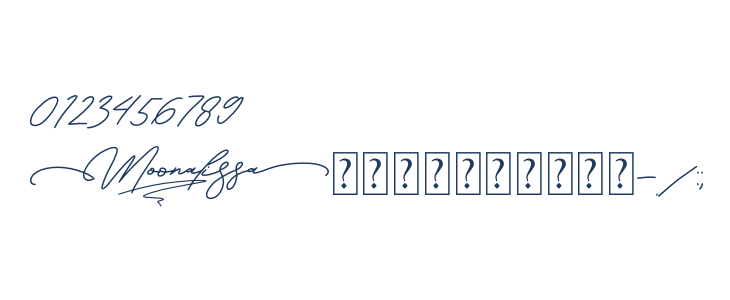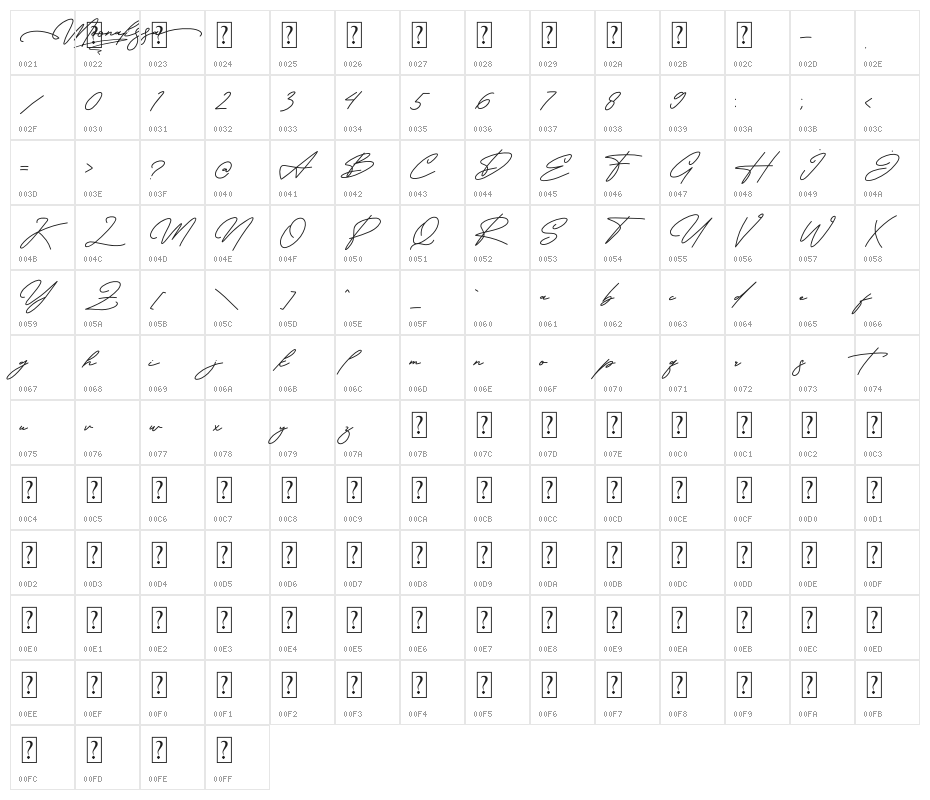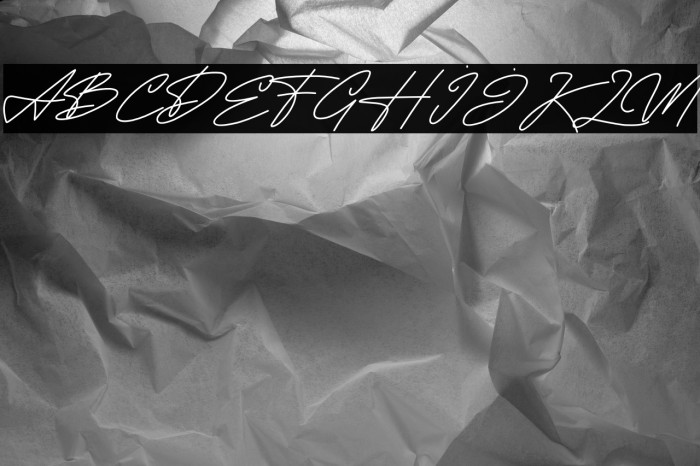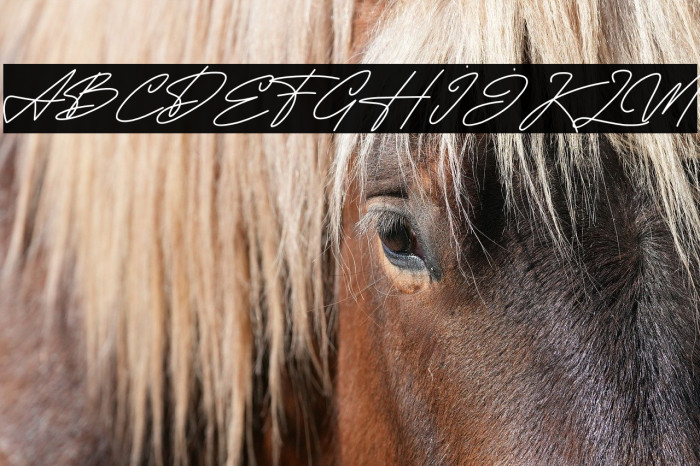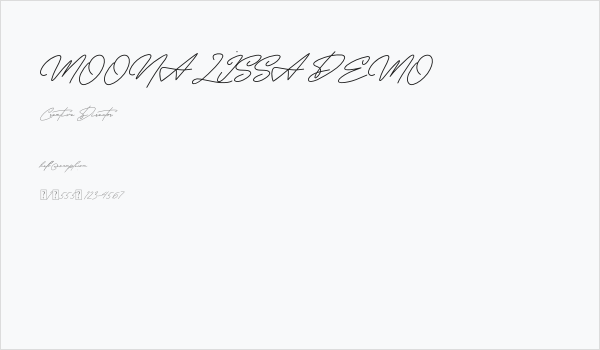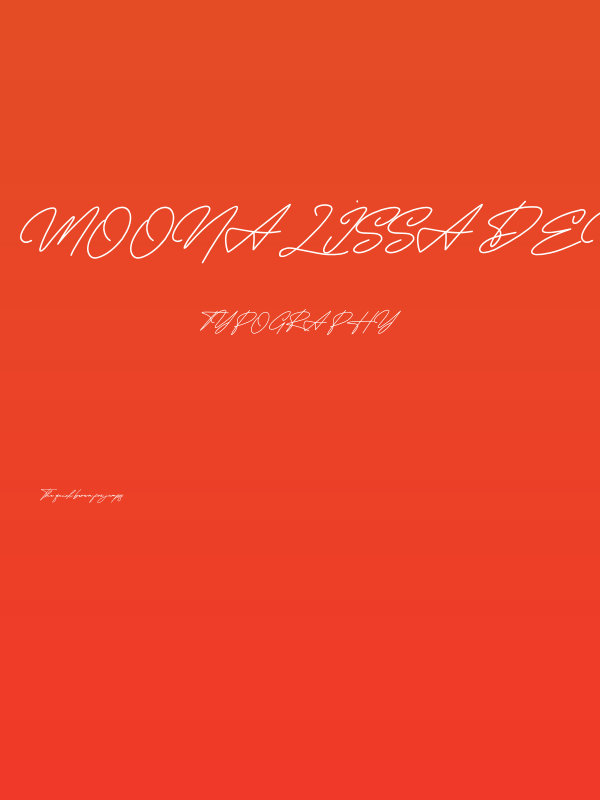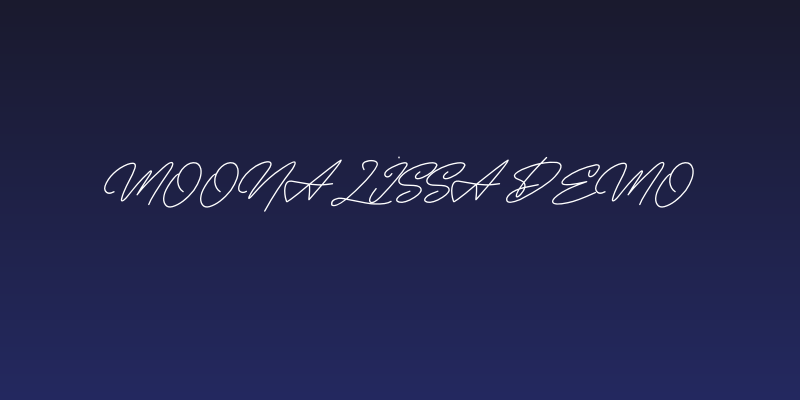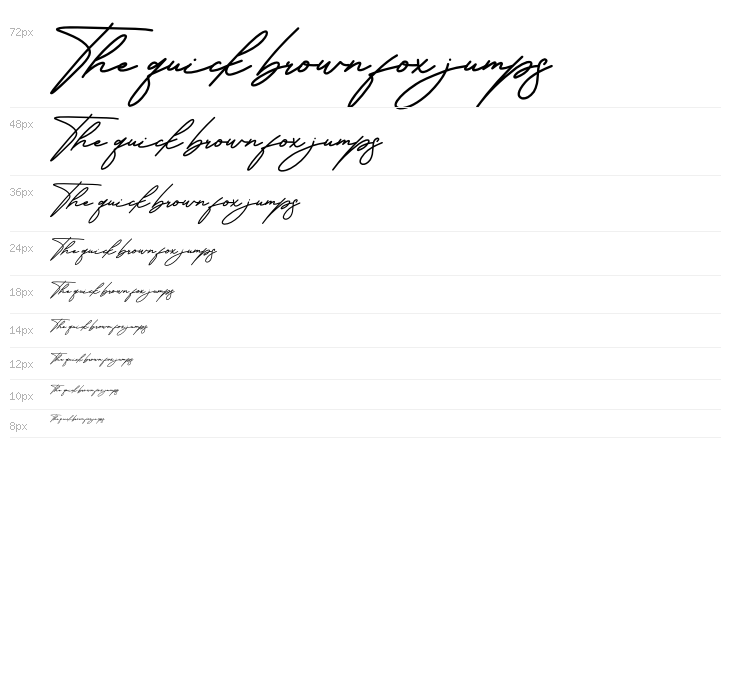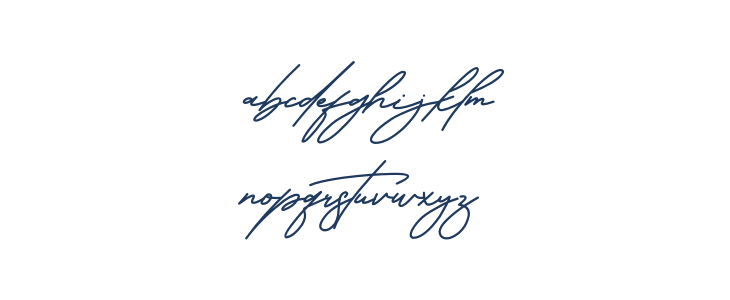
MOONALISSA DEMO Font
MOONALISSA DEMO Description
This elegant script font features a fluid, cursive style with smooth, flowing lines that mimic natural handwriting. The uppercase letters are slightly larger and more ornate, while the lowercase letters maintain a consistent, graceful appearance. The numerals are clear and easy to read, complementing the overall aesthetic. The font includes a variety of special characters, adding versatility to its use. Its delicate strokes and refined curves make it ideal for projects that require a touch of sophistication and elegance.